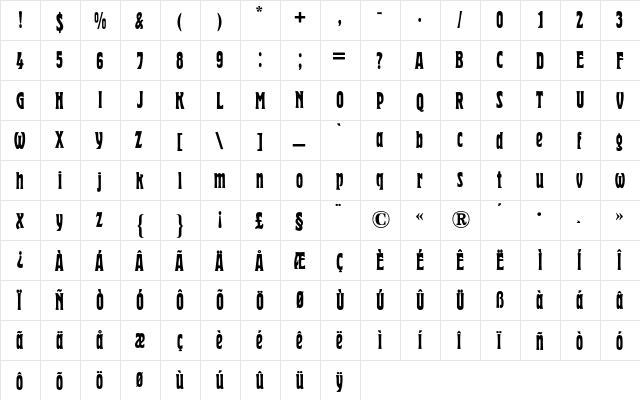
Herold Reklameschrift BQ Regular
Design Context for Herold Reklameschrift BQ Typeface
Herold Reklameschrift BQ takes a measured approach to typography — its balanced proportions and neutral character make it a reliable workhorse for both digital and print work.